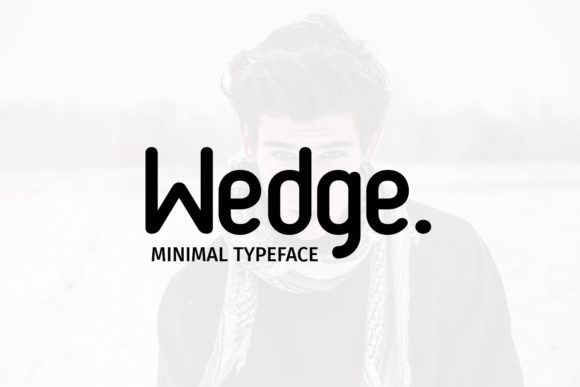
Welcome to the realm of Wedge Font, a display font family crafted with meticulous attention to detail, exuding a captivating charm that will elevate your design projects to new heights. Immerse yourself in a world of typographic elegance as you explore this creation from the visionary minds at Design Stag.
Wedge Font's minimalist and neat demeanor lends itself seamlessly to a kaleidoscope of creative endeavors. Whether you're a seasoned designer or just starting your journey into the world of visual aesthetics, Wedge Font will effortlessly enhance your projects, adding a touch of sophistication and grace.
With its clean lines and captivating curves, Wedge Font possesses an inherent versatility that makes it a perfect fit for an array of design concepts. Unleash your imagination and let Wedge Font lead you to new creative horizons, transforming ordinary designs into captivating masterpieces.
Step into the world of Wedge Font and experience the sheer delight of crafting harmonious designs that resonate with your audience. Its effortless elegance and timeless appeal will leave an unforgettable impression, capturing hearts and igniting imaginations wherever it's used.
Discover the beauty of simplicity with Wedge Font, a display font family that embodies the essence of minimalism and grace. It's the perfect addition to your creative toolkit, ready to elevate your designs and leave a lasting impact on your audience.